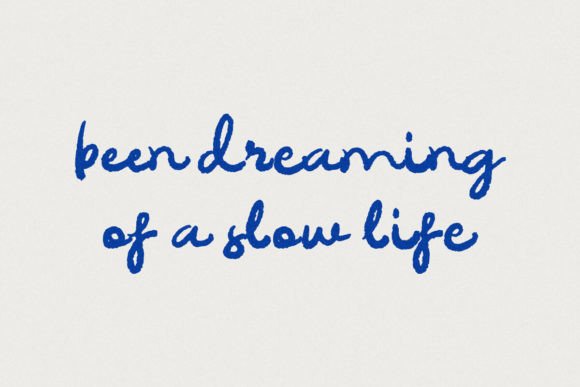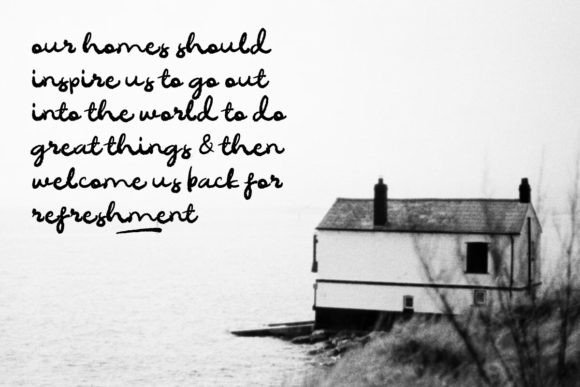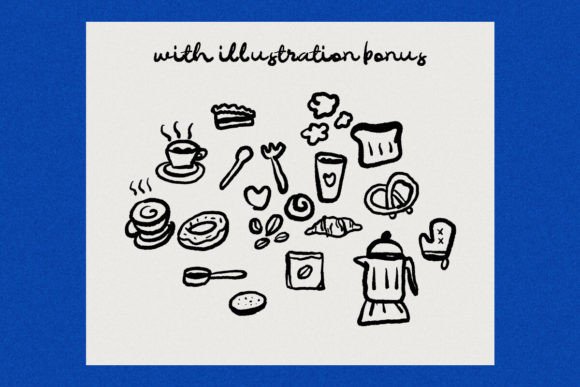
Introduction to Morning Brew Font Font
Fonts play a crucial role in design, and the Morning Brew Font font is a typeface that brings both character and versatility to any project. Whether you’re working on a branding project, a website, or a print design, the Morning Brew Font font offers a unique style that can elevate your work.
Introducing Morning Brew, a natural handwritten script font that brings a warm, personal touch to your projects.
Inspired by the comfort of a freshly brewed cup of coffee, Morning Brew captures the essence of organic, free-flowing handwriting Its fluid strokes and authentic texture make it perfect for adding a cozy, inviting feel to your designs.
The Morning Brew Font font is more than just a typeface – it’s a design tool that helps you communicate your message with style and clarity. Its unique character set and versatile design make it suitable for a wide range of applications, from elegant invitations to bold headlines.
With its carefully crafted letterforms and balanced proportions, the Morning Brew Font font ensures readability and visual appeal across all mediums.
What makes Morning Brew Font font special?
The Morning Brew Font font stands out with its unique design, exceptional readability, and versatility across various design applications.